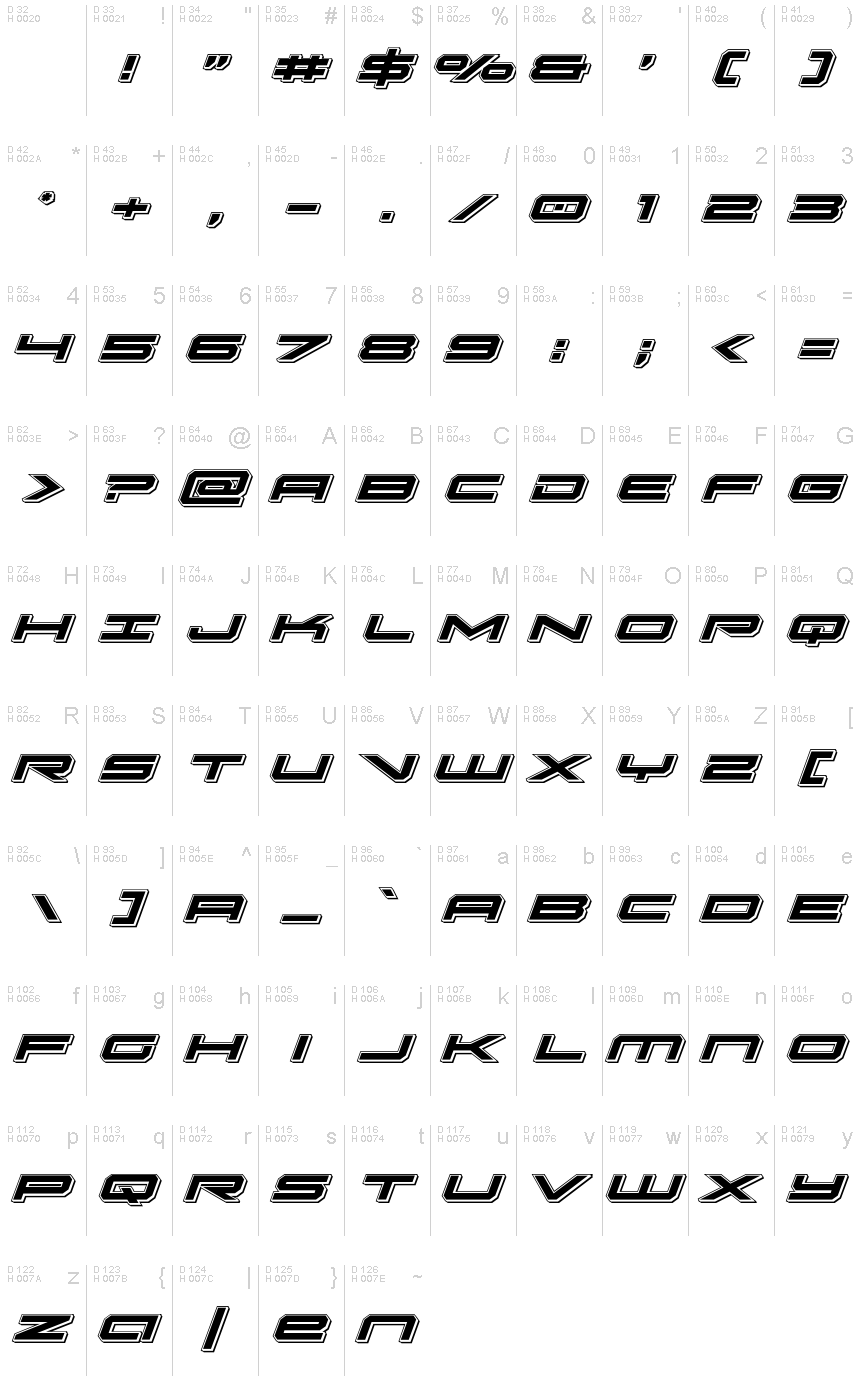
Oramac Punch Italic
Oramac Punch Italic is a captivating display font that exudes a futuristic flair. Designed by Daniel Zadorozny, this expanded typeface boasts a striking, angular aesthetic that commands attention.
Its distinctive letterforms, with their sharp edges and bold lines, lend a sense of dynamism and technological sophistication. Oramac Punch Italic's versatility shines through, making it a versatile choice for a wide range of design applications, from editorial layouts and product branding to eye-catching headlines and digital interfaces.
Its unique personality and powerful visual impact make it a standout option for designers seeking to craft impactful, forward-thinking designs.